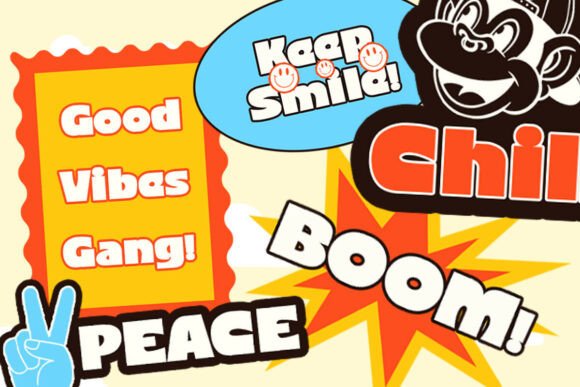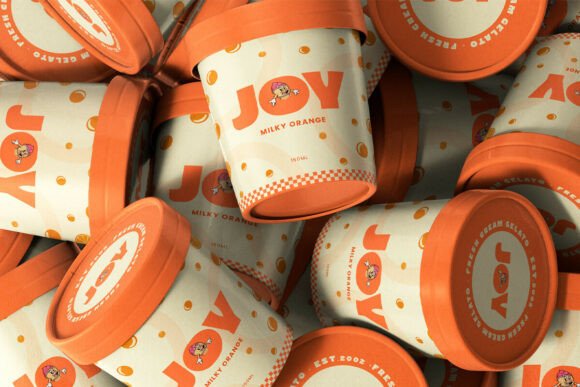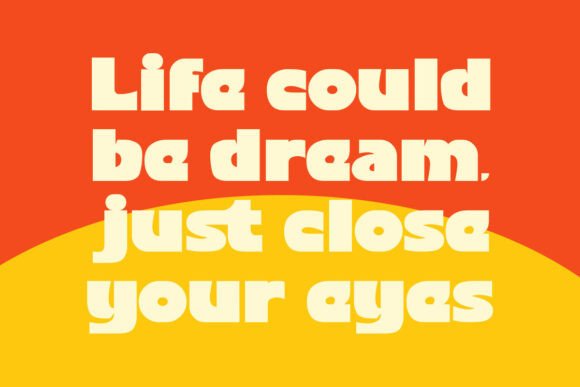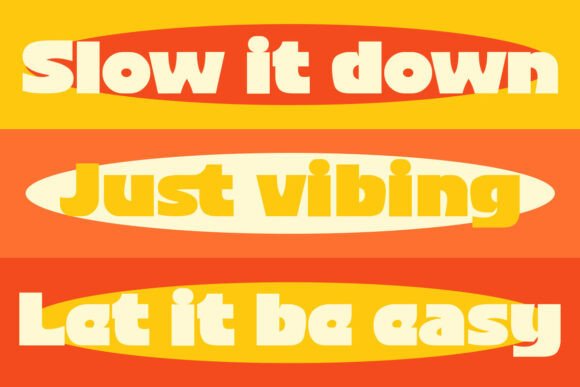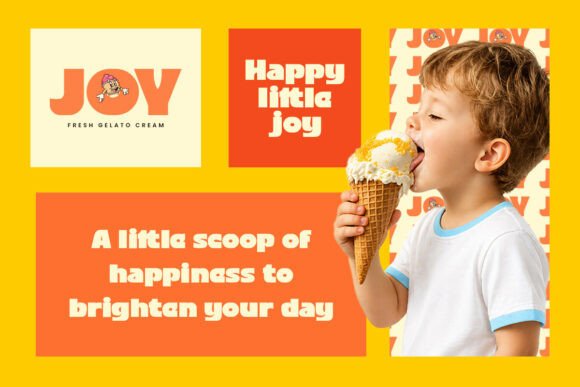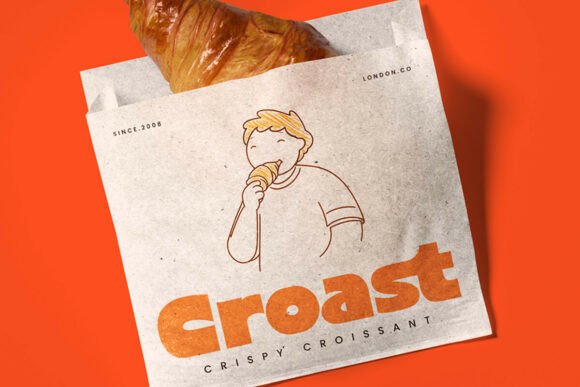
Introducing Boldeux Font: The Ultimate Display Font for Bold Designs
Are you looking for a font that can instantly grab attention and add a playful retro vibe to your designs? Look no further than Boldeux Font! This bold display font is designed to make a strong visual impact, featuring chunky letterforms, smooth curves, and unique character cuts that will make your designs stand out from the crowd.
Inspired by Vintage Pop Graphics and Funky Street-Style Typography
Boldeux Font is inspired by the fun and energetic world of vintage pop graphics and funky street-style typography. The font’s playful and cheerful feel makes it perfect for designs that require a bold and eye-catching approach. Whether you’re working on branding projects, logos, wedding designs, social media posts, advertisements, product packaging, product designs, labels, photography, watermarks, invitations, stationery, or any other project that requires a display retro font, Boldeux is the perfect choice.
Key Features of Boldeux Font
- Chunky Letterforms: Boldeux Font features chunky letterforms that are designed to grab attention instantly.
- Smooth Curves: The font’s smooth curves add a touch of elegance and sophistication to your designs.
- Unique Character Cuts: The unique character cuts in Boldeux Font give it a distinctive look that’s sure to make your designs stand out.
- Playful Retro Vibe: The font’s playful retro vibe makes it perfect for designs that require a fun and energetic approach.
- Strong Visual Impact: Boldeux Font is designed to make a strong visual impact, making it perfect for bold and eye-catching designs.
Boldeux Font is perfect for designers and crafters who want to add a bold and playful touch to their designs. The font is easy to use and can be applied to a wide range of projects, from branding and logos to social media posts and product packaging. Whether you’re a professional designer or a DIY crafter, Boldeux Font is a great addition to your font library.
Use Boldeux Font for:
- Branding Projects: Use Boldeux Font to create bold and eye-catching brand identities.
- Logos: The font’s unique character cuts and chunky letterforms make it perfect for logos that require a strong visual impact.
- Wedding Designs: Add a playful and romantic touch to your wedding designs with Boldeux Font.
- Social Media Posts: Use Boldeux Font to create bold and eye-catching social media posts that grab attention.
- Advertisements: The font’s strong visual impact makes it perfect for advertisements that require a bold and eye-catching approach.
- Product Packaging: Use Boldeux Font to create eye-catching product packaging that stands out on store shelves.
- Product Designs: The font’s playful and energetic feel makes it perfect for product designs that require a bold and eye-catching approach.
- Labels: Use Boldeux Font to create bold and eye-catching labels that grab attention.
- Photography: Add a playful and creative touch to your photography with Boldeux Font.
- Watermarks: Use Boldeux Font to create bold and eye-catching watermarks that add a touch of elegance to your photos.
- Invitations: The font’s playful and energetic feel makes it perfect for invitations that require a bold and eye-catching approach.
- Stationery: Use Boldeux Font to create bold and eye-catching stationery that adds a touch of personality to your correspondence.
| Author | glyphstyle |
In conclusion, Boldeux Font is a bold display font that is perfect for designers and crafters who want to add a playful and energetic touch to their designs. With its chunky letterforms, smooth curves, and unique character cuts, Boldeux Font is sure to grab attention and make a strong visual impact. Whether you’re working on branding projects, logos, wedding designs, social media posts, advertisements, product packaging, product designs, labels, photography, watermarks, invitations, stationery, or any other project that requires a display retro font, Boldeux is the perfect choice.